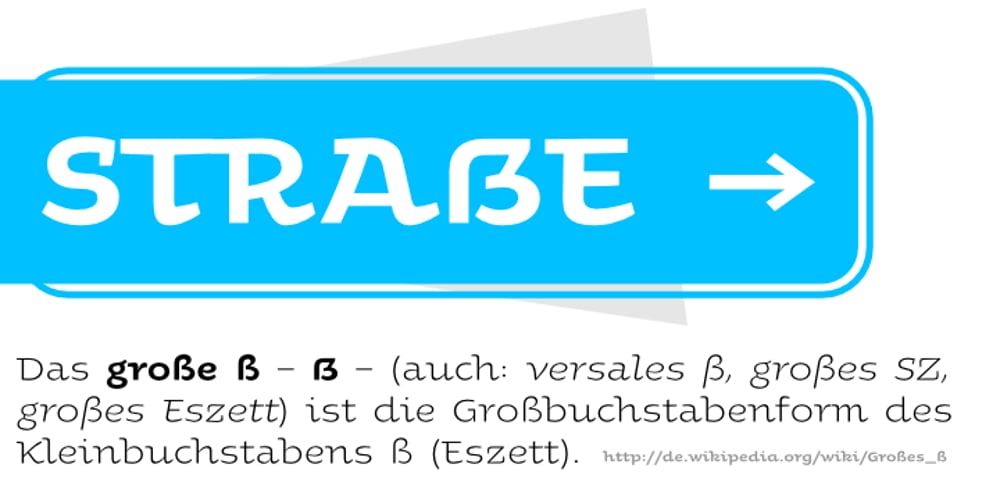
Oksana Std Font Family was designed by Andrij Shevchenko and published by AndrijType. Oksana Std contains 24 styles and family package options. Oksana Std has only the Western Latin characters from multilingual Oksana. It has six weights with real italics, and Alt faces with Old Style figures, alternative characters -a-g-k-y- and ampersand. German großes Eszett is also included.